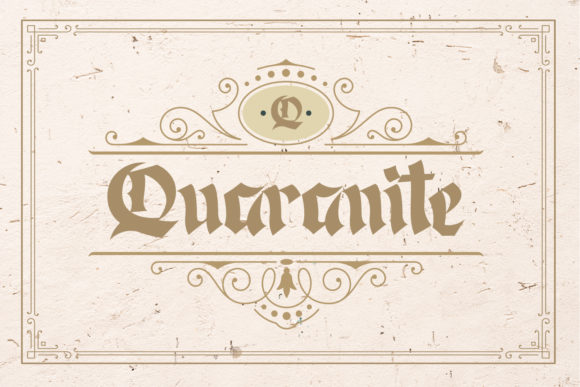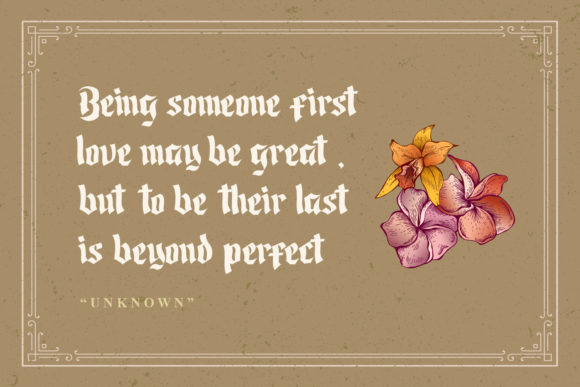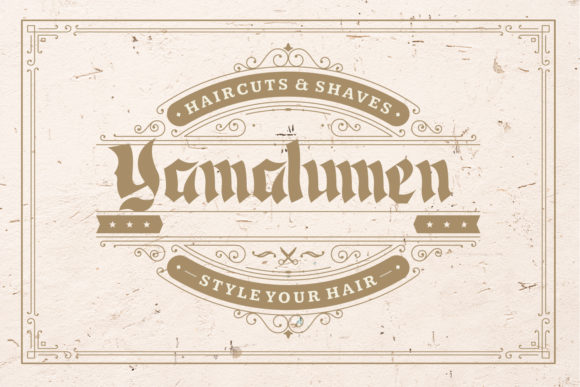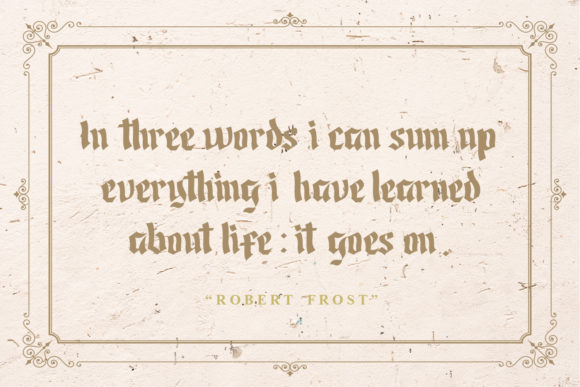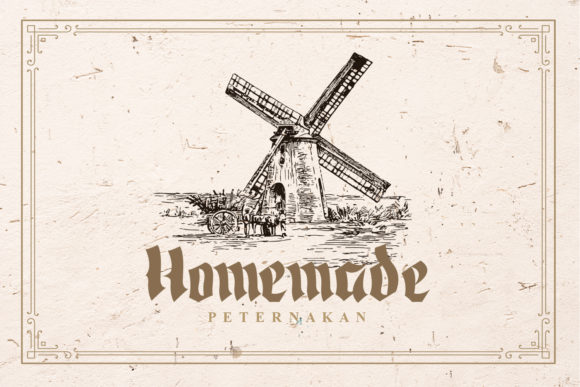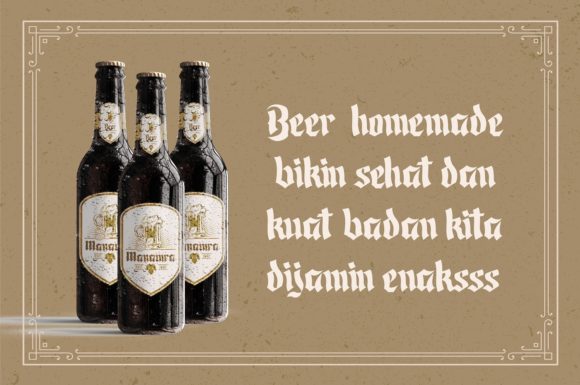
The Birth of a Masterpiece: Unveiling Cardanaya Font
Have you ever found yourself staring at a blank canvas, desperately searching for the perfect font to bring your creative vision to life? The moment when the right typography clicks, and your entire design comes together in a beautiful, cohesive way – it’s pure magic. It’s a feeling that drives designers to push boundaries and strive for excellence. And that’s exactly what the Cardanaya Font is designed to do.
As a masterfully crafted blackletter font, Cardanaya Font is more than just a font – it’s a tool for creatives to elevate their work to new heights. Whether you’re a seasoned designer or just starting out, this font has the potential to become your new go-to for creating stunning, one-of-a-kind designs. With Cardanaya Font, you’ll be able to add a touch of sophistication and elegance to your work, setting you apart from the rest.
- Font Family: Cardanaya Font comes in 2 font families: Regular and Bold
- Character Set: Supports a wide range of characters, including Latin, Cyrillic, and Greek alphabets
- Unique Characteristics: Features a unique, hand-drawn design with a mix of modern and vintage elements
Cardanaya Font Review
Overall, I think the Cardanaya Font has a lot of potential, but it also has some limitations that may deter designers from using it extensively. ✨ Let’s dive in and explore both the good and the bad.
- The unique blend of modern and vintage elements makes it a great choice for designers looking for something different.
- The font is highly customizable, allowing designers to adjust the spacing, weight, and style to fit their specific needs.
- Cardanaya Font supports a wide range of languages, making it a versatile option for global branding.
- ⚠️ The font can be a bit overwhelming, especially when used in large blocks of text. This may be a challenge for designers who need to create clear and concise content.
- ⚠️ The font’s complexity can also make it difficult to pair with other fonts, which may limit its use in certain design contexts.
The Cardanaya Font is a bold and eye-catching choice for designers who want to make a statement. While it has its limitations, it’s a great option for projects that require a unique and modern aesthetic.
Tips for Getting the Most Out of Cardanaya Font
Use Cardanaya font for titles and headings to add a touch of elegance and sophistication.
Pair Cardanaya font with a clean and simple font for body text to create a balanced and harmonious design.
Experiment with different font sizes and styles to create visual interest and emphasis.
Cardanaya font is ideal for:
Magazine and newspaper layouts